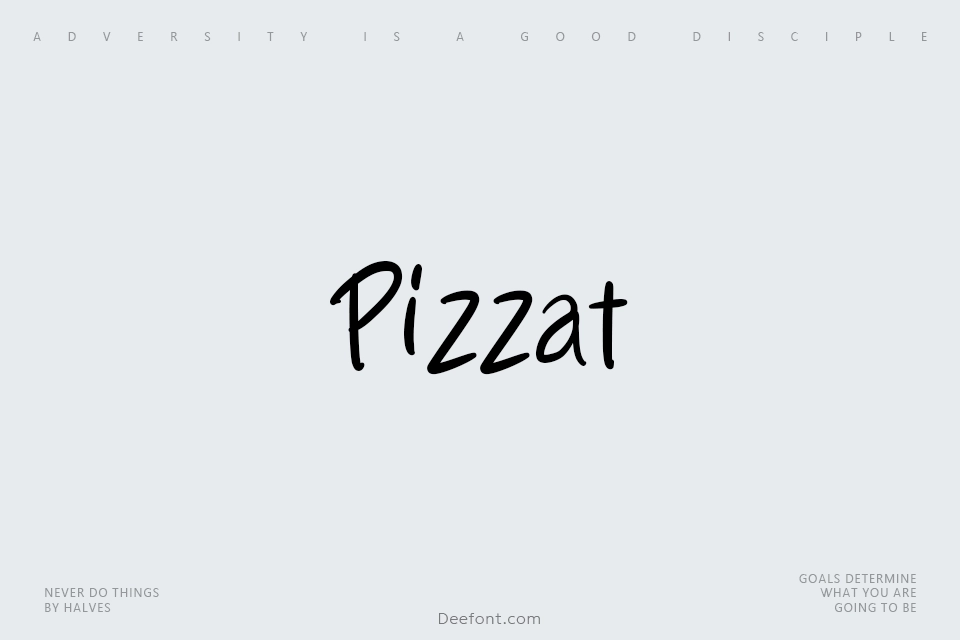
Pizzat Font
Pizzat is a beautifully crafted handwritten script font that brings elegance and charm to your creative projects. Designed with flowing letterforms and smooth curves, this versatile typeface is perfect for invitations, branding, and artistic applications. The font combines contemporary style with handwritten authenticity, making it an ideal choice for designers seeking to add a personal, sophisticated touch to their typography work.
Designed by:Muhamad Junaid (MJType)Website